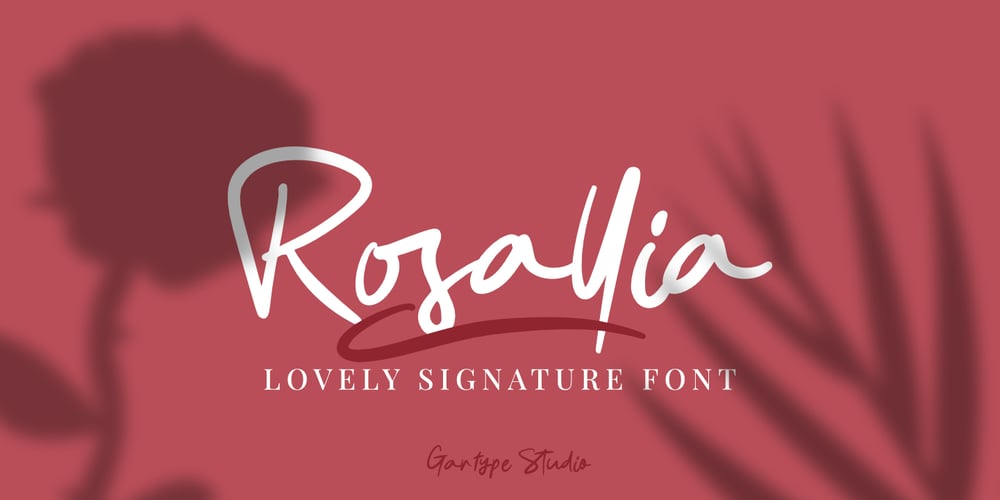
Rosallia GT
Rosallia GT font
Rosallia GT Font Family was designed by Gumilang Anggara Ruslan and published by Gartype Studio. Rosallia GT contains 2 styles and family package options. Know that love can be expressed without words? yes true love can be expressed through visual font must therefore called Rosallia GT was born to express your feelings and visualized according to the needs. Rosallia GT also comes with a swash to add a nice finishing touchThis font is suitable for needs such as signature, decorating, writing in blogging website, up to poster poster to increase your sales